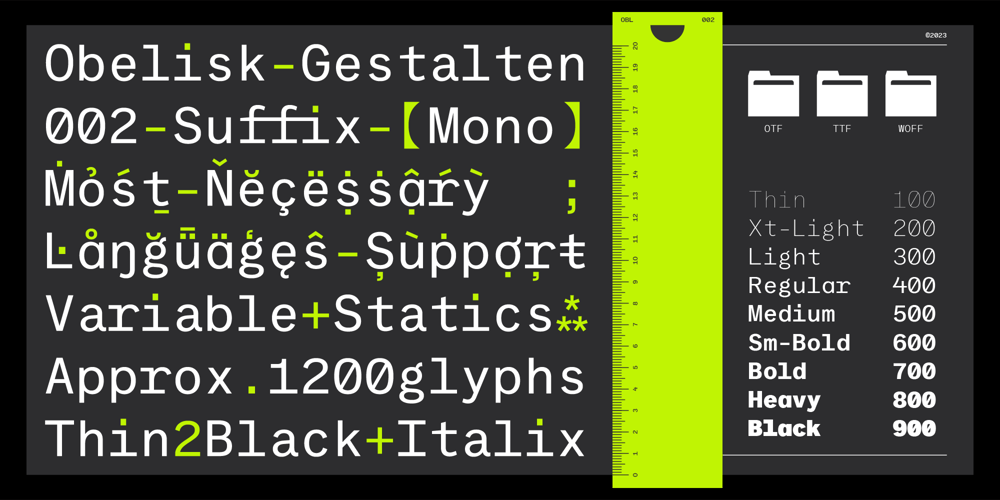
Suffix Font Family was designed by Wiro Sableng and published by Obelisk Gestalt. Suffix contains 19 styles and family package options. Suffix Mono is a monospaced sans-serif family that offers an extensive range of weights and styles. Additionally, it provides numerous OpenType features, including 16 distinct stylistic sets for users to experiment with. The core concept behind Suffix Mono is to explore the distinctive textures often associated with monospace fonts, which are primarily characterized by their “fixed width” nature.Suffix Mono enhances these textures by introducing various stylistic features that enable users to replace closed glyph contours, such as those found in characters like ‘f,’ ‘r,’ ‘i,’ and ‘j,’ with more open and airy alternatives. Enabling these alternates results in an overall transformation of the textural appearance of Suffix Mono.Furthermore, Suffix Mono boasts one of the hallmark features of modern typefaces: extensive language support, encompassing nearly the entire Latin script.